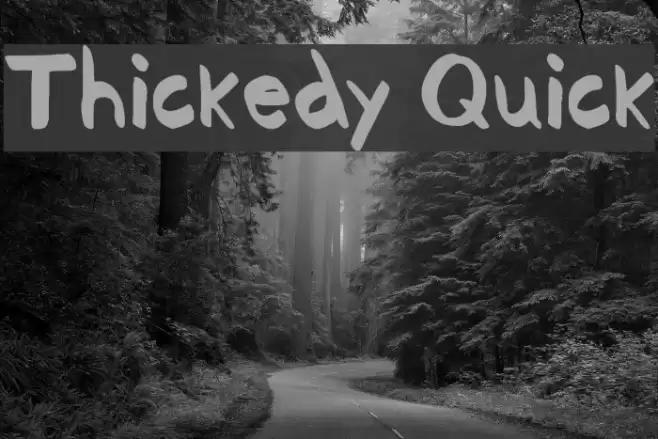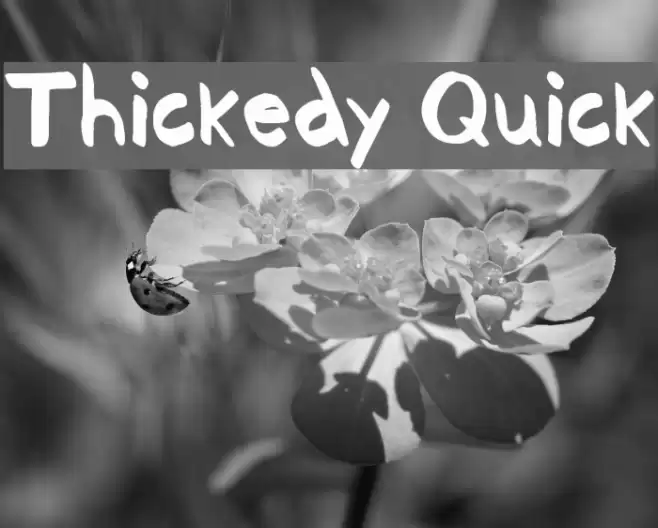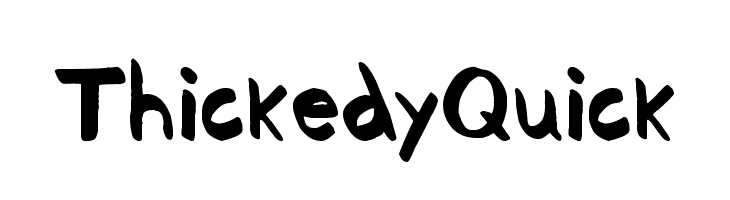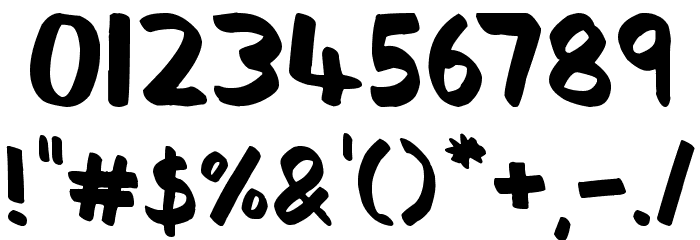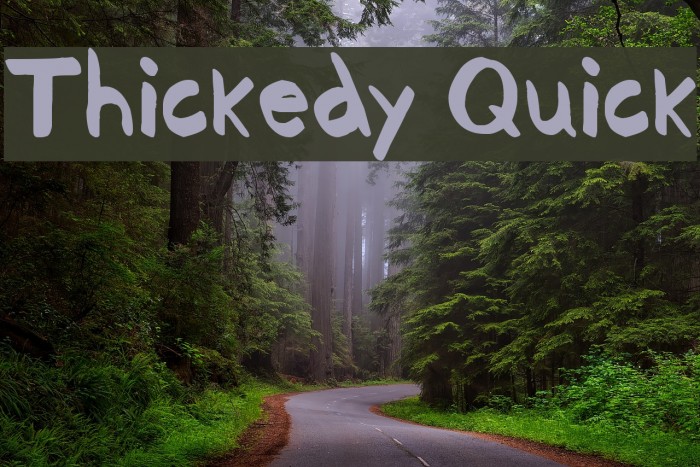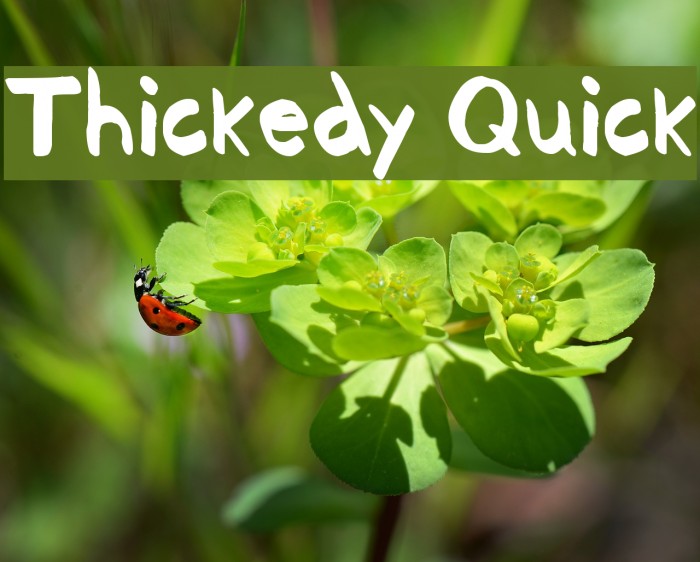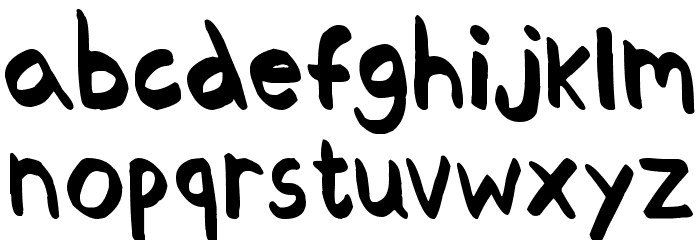
Thickedy Quick Font
Thickedy Quick Description
This font features a bold and playful handwritten style, characterized by its thick strokes and slightly irregular shapes that convey a sense of spontaneity and creativity. The uppercase and lowercase letters maintain a consistent weight, providing a cohesive look across the alphabet. The numbers and special characters are designed with the same playful aesthetic, making them suitable for informal and fun designs. The overall appearance is casual and approachable, with a touch of whimsy that adds personality to any text.
A bold, playful handwritten font with thick strokes and a casual style from Handwritten fonts.
- Proposed Projects: Ideal for children's books, playful branding, casual invitations, and creative posters.
- Overall Style: Playful, Casual
- Use Case: Headlines, Posters, Informal Texts